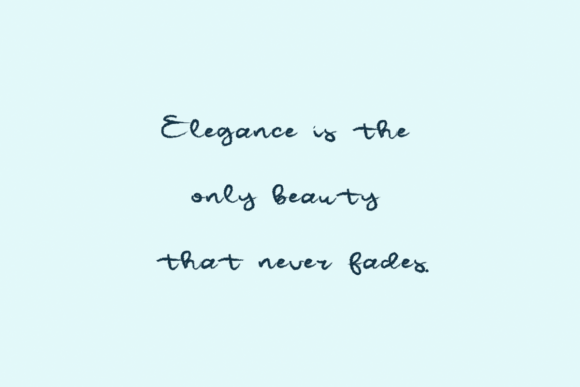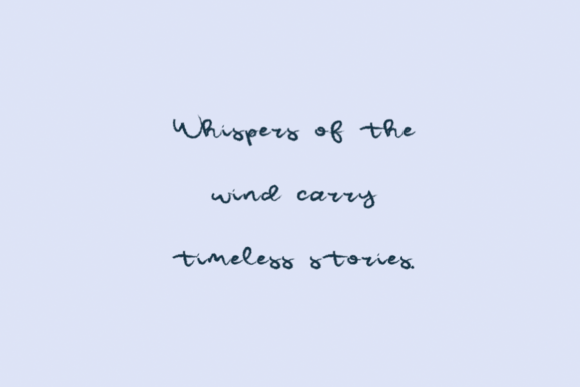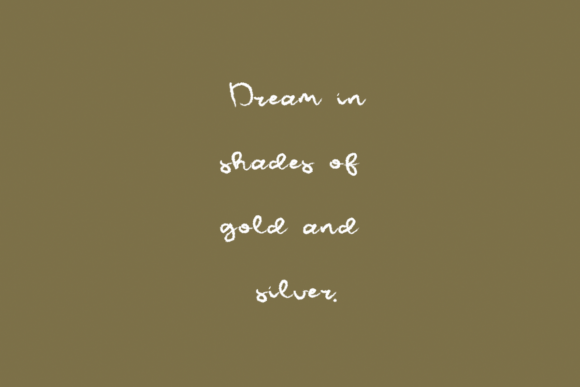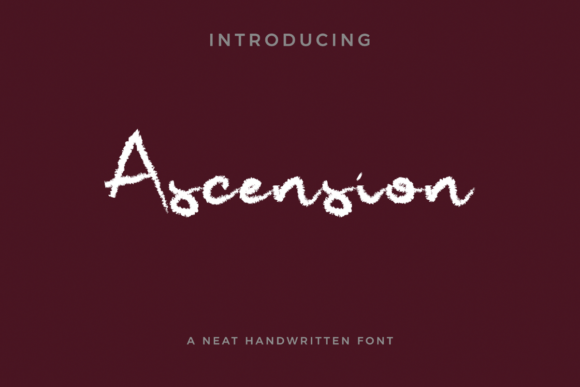
Experience the Timeless Allure of Ascension Font: Elevate Your Designs with Elegance and Charm
In the world of typography, few fonts manage to capture the essence of elegance and charm as effortlessly as Ascension. This rare, handcrafted script font is a masterpiece of design, offering a unique handwritten aesthetic that brings warmth and sophistication to any project. Whether you’re a designer, craftsperson, or simply someone who appreciates the art of beautiful typography, Ascension is sure to captivate you with its loveable and artistic flair.
The Art of Handcrafted Typography: What Makes Ascension Special
Ascension stands out in the digital age, where automated fonts often dominate the landscape. This script font was meticulously hand lettered to perfection, ensuring every letterform, swash, and ligature exudes a personal touch. The result is a typeface that feels both organic and refined, perfect for projects that demand a bit of personality and flair. The handcrafted nature of Ascension means that it brings a level of uniqueness and authenticity to your designs, setting them apart from the standard, cookie-cutter typography often seen in digital media.
A Perfect Blend of Fashion and Functionality
One of the defining features of Ascension is its perfect blend of fashion and functionality. On one hand, it boasts an undeniably fashionable appeal, with elegant strokes, beautiful connections between letters, and a stylish rhythm that flows effortlessly across the page or screen. On the other, it remains highly functional, legible, and versatile, making it suitable for a wide range of applications, from branding and advertising to packaging and digital media.
Enhance Your Creative Projects with Ascension
Ascension’s versatility is one of its most compelling attributes. This script font can breathe life into a variety of creative endeavors, including:
• Branding and Logotypes: Use Ascension to create memorable brand identities that stand out. Its unique charm can help your brand leave a lasting impression on customers.
• Stationery and Invitations: Add a touch of elegance to your stationery, invitations, and greeting cards. Ascension’s beautiful handwritten design makes any correspondence feel special.
• Digital Media: From website headers to social media graphics, Ascension can elevate your digital content, making it more engaging and visually appealing.
• Packaging: Make your product packaging stand out on store shelves with Ascension. Its distinctive look can help your product get noticed.
Why Choose Ascension for Your Typography Needs?
Choosing Ascension for your typography needs comes with numerous benefits:
• Uniqueness: Stand out from the crowd with a font that is both rare and distinctive.
• Elegance: Bring a touch of sophistication and elegance to your designs.
• Versatility: Use Ascension across various platforms and applications, from print to digital.
• Personal Touch: Infuse your projects with a personal, handcrafted feel that resonates with audiences.
Ascension is more than just a script font; it’s an artistic statement, a design element that can transform your projects with its timeless allure. Its unique blend of elegance, charm, and functionality makes it an invaluable tool for designers and crafters looking to add a bit of sophistication and personality to their work. Whether you’re crafting a brand identity, creating digital content, or designing packaging, Ascension offers the perfect combination of style and substance to make your projects truly memorable. Experience the artistic flair and loveable aesthetics of Ascension, and discover how this rare, handcrafted script font can elevate your designs to new heights.